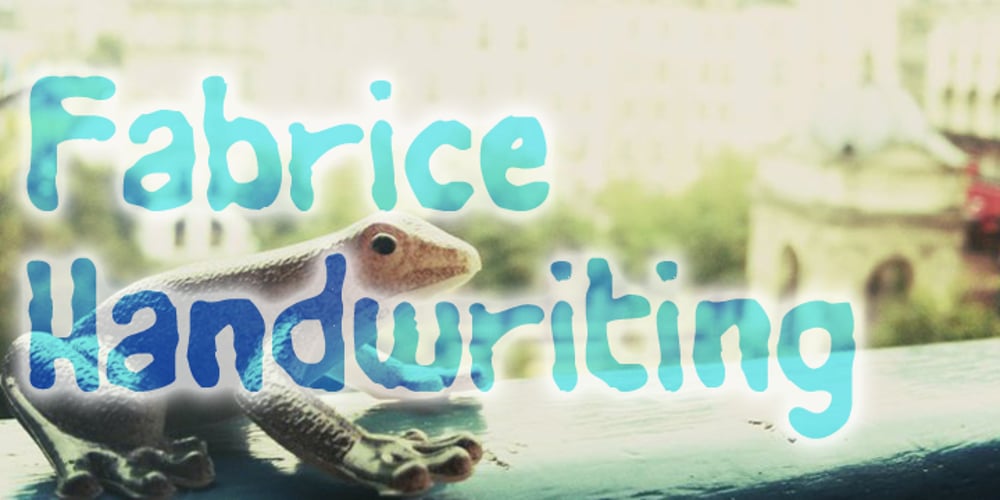
Fabrice
Fabrice font
Fabrice Font Family was designed by Fabrice Ducouret and published by Fabulous Rice. Fabrice contains 1 styles and family package options. Fabrice is a font based on my handwriting, which has been reworked to be turned into a font. I write differently with each pen I use, and this font corresponds to my handwriting while using a pen I refill myself with special inks. It contains a wide range of characters, and will be readable anywhere, yet different!